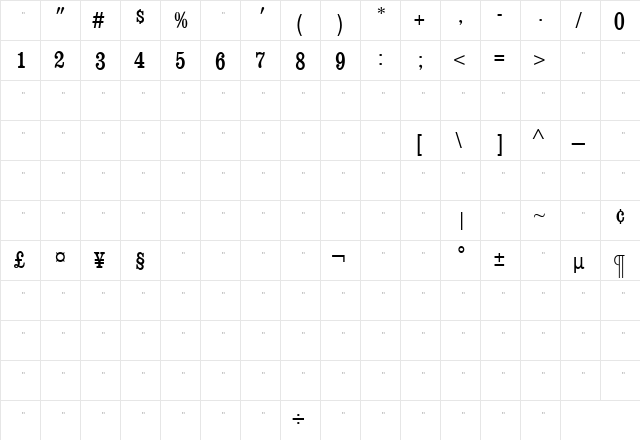
ConsortMediumCondensedTab Regular
Design Context for ConsortMediumCondensedTab Typeface
ConsortMediumCondensedTab offers clean, dependable letterforms without strong stylistic allegiance, making it a practical choice for designers who need flexibility. Its narrow stance lets it pack a punch even in space-constrained designs.